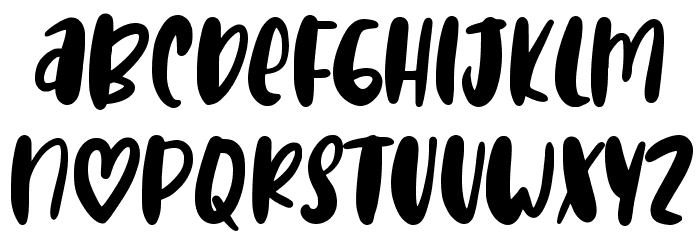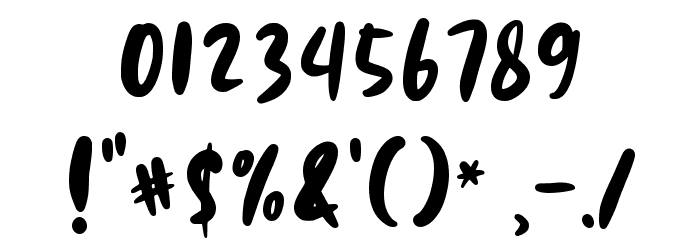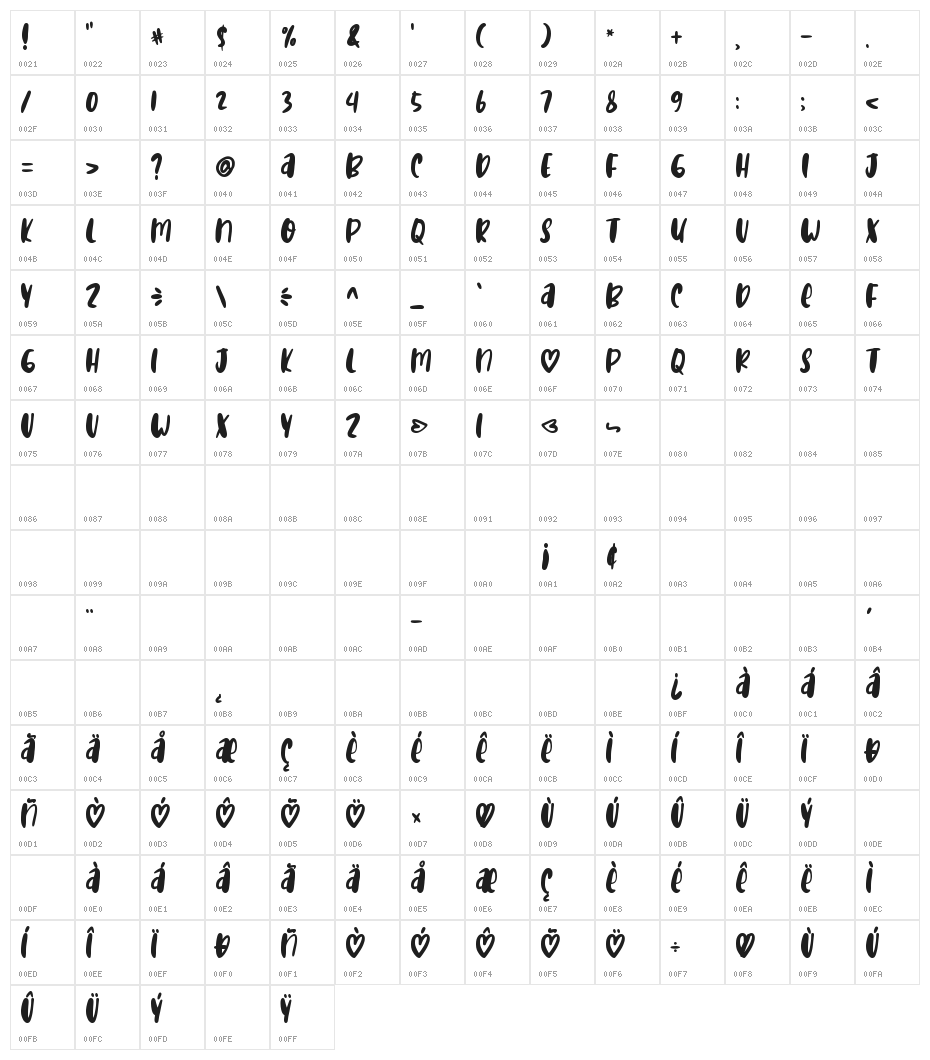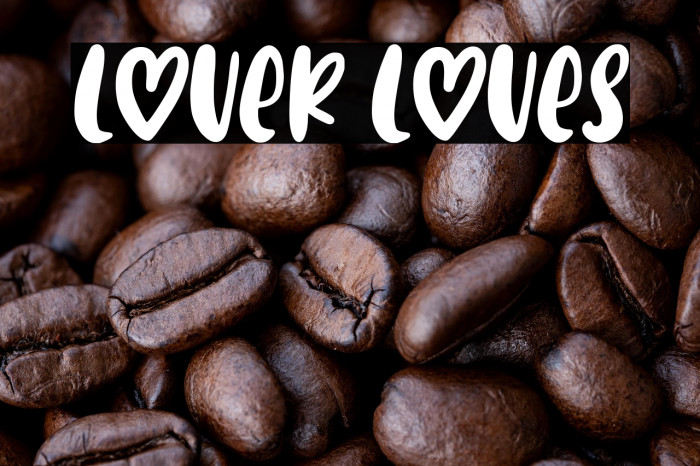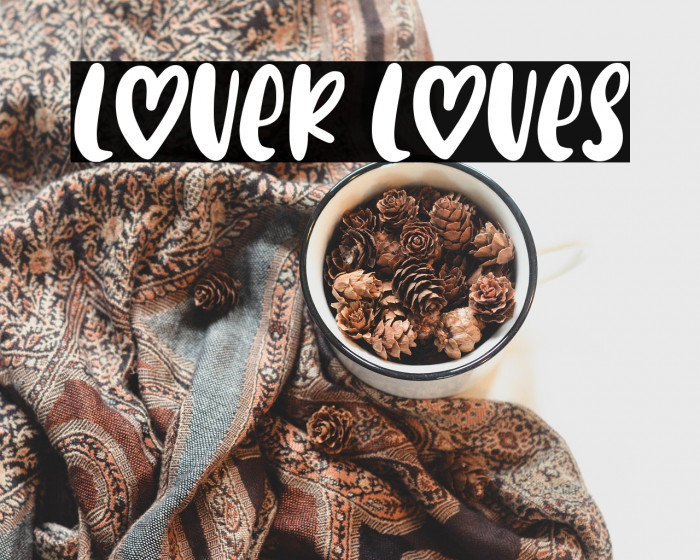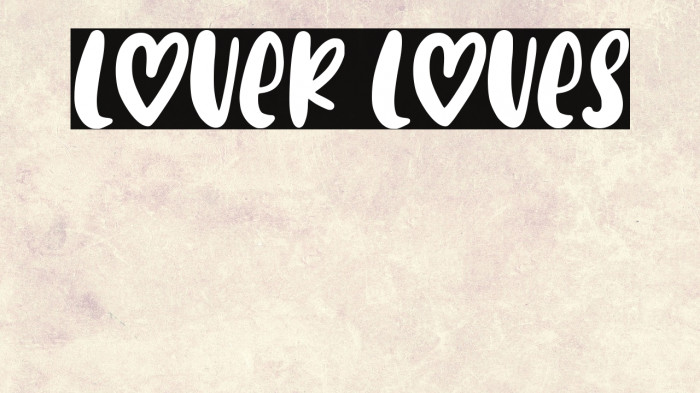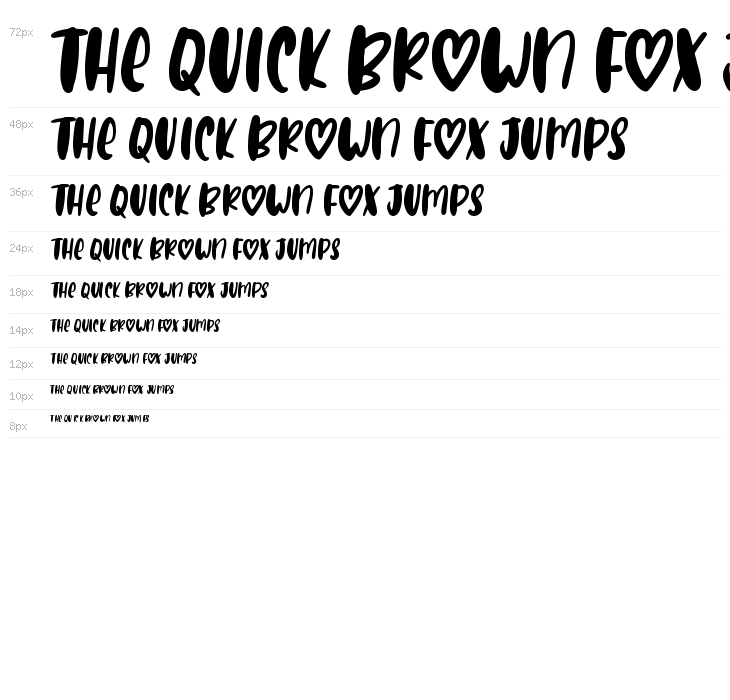
Lover Loves Font
This font features a playful and bold handwritten style, characterized by its thick strokes and rounded edges. The letters are slightly slanted, giving them a dynamic and energetic appearance. The uppercase and lowercase letters maintain a consistent flow, with some unique variations such as the heart-shaped 'O'. The numbers and special characters are equally bold and expressive, complementing the overall aesthetic. This font exudes a sense of fun and creativity, making it ideal for projects that require a personal and informal touch.
A bold, playful handwritten font with thick strokes and rounded edges.
- Proposed Projects: Ideal for greeting cards, playful branding, social media graphics, and children's book covers.
- Overall Style: Playful, Creative